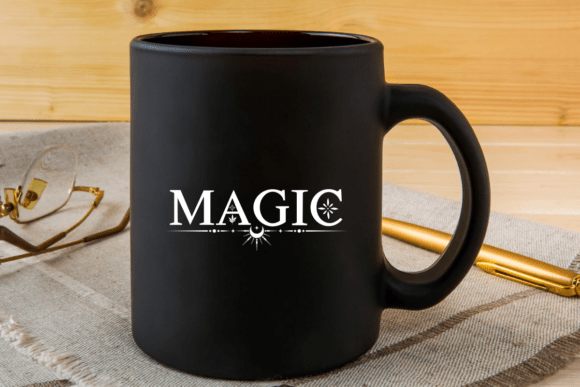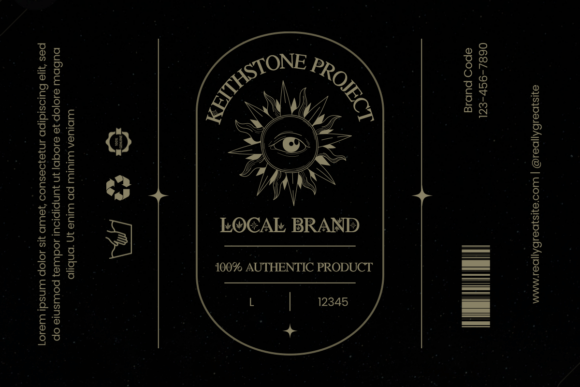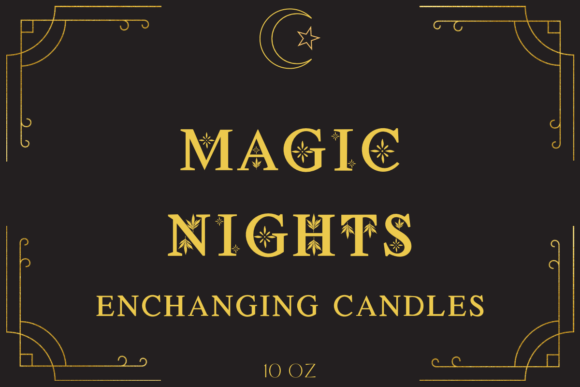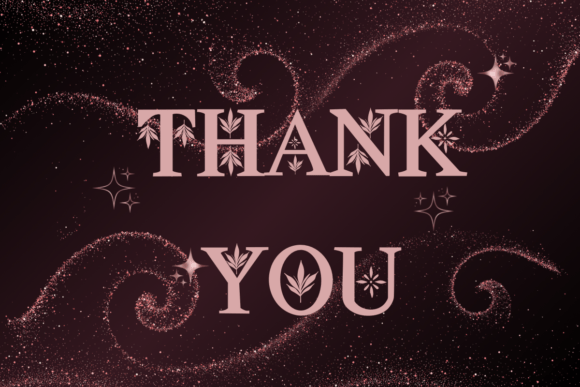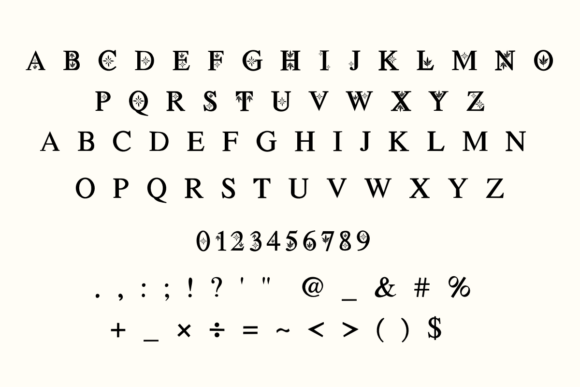
Introduction to Mystic Magic Font Font
Fonts play a crucial role in design, and the Mystic Magic Font font is a typeface that brings both character and versatility to any project. Whether you’re working on a branding project, a website, or a print design, the Mystic Magic Font font offers a unique style that can elevate your work.
Experience the ethereal charm of Mystic Magic, a decorative font that effortlessly brings an enchanting touch to your creative endeavors.
Perfectly suited for notetaking, penning personal journals, or crafting heartfelt greeting cards, its versatility doesnβt stop there Besides these, Mystic Magic flourishes when used in diverse designs ranging from striking banners and appealing content to personalized mugs, distinct cards, and customized shirts.
Key Features of Mystic Magic Font Font
Why Choose Mystic Magic Font Font?
The Mystic Magic Font font is more than just a typeface β it’s a design tool that helps you communicate your message with style and clarity. Its unique character set and versatile design make it suitable for a wide range of applications, from elegant invitations to bold headlines.
With its carefully crafted letterforms and balanced proportions, the Mystic Magic Font font ensures readability and visual appeal across all mediums.
What makes Mystic Magic Font font special?
The Mystic Magic Font font stands out with its unique design, exceptional readability, and versatility across various design applications.